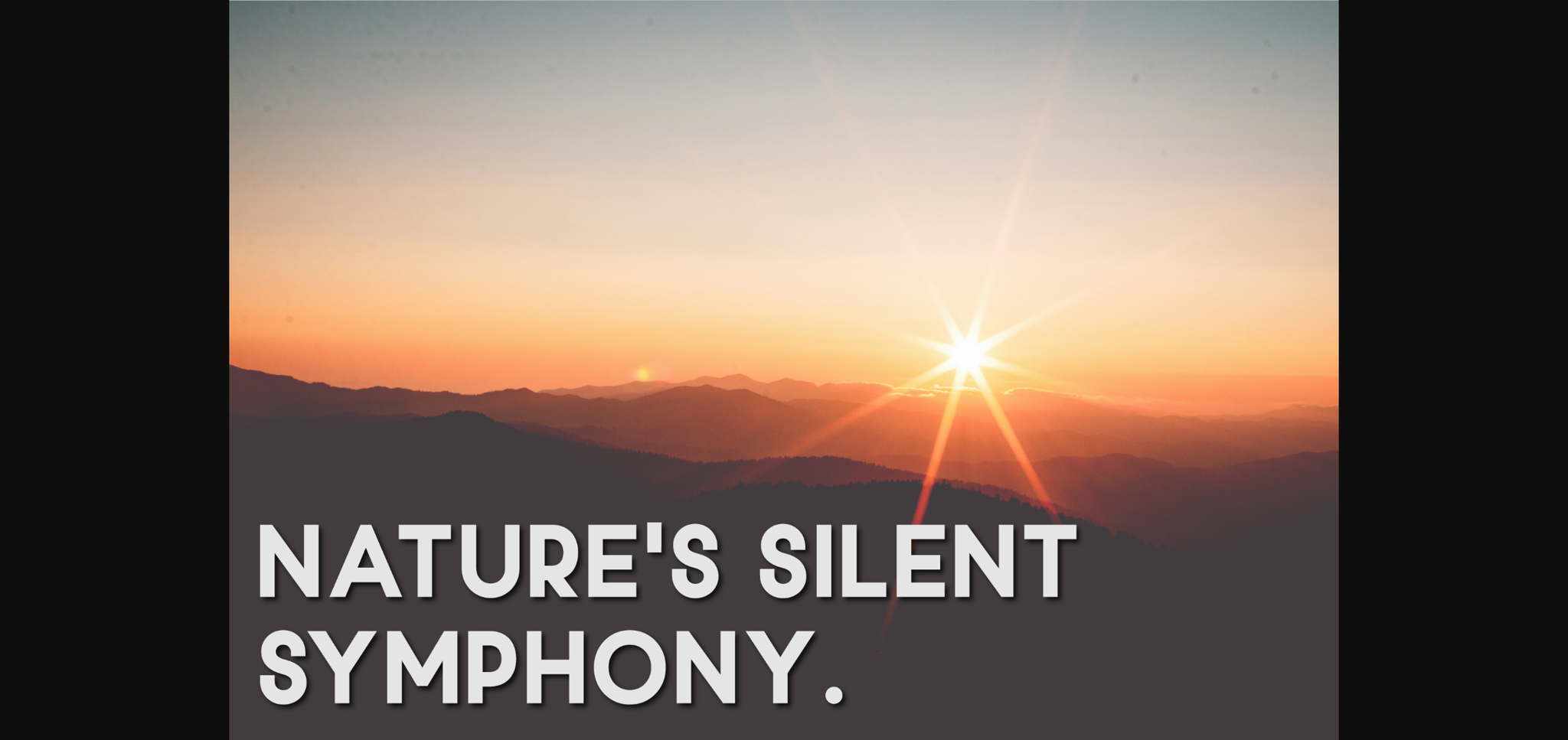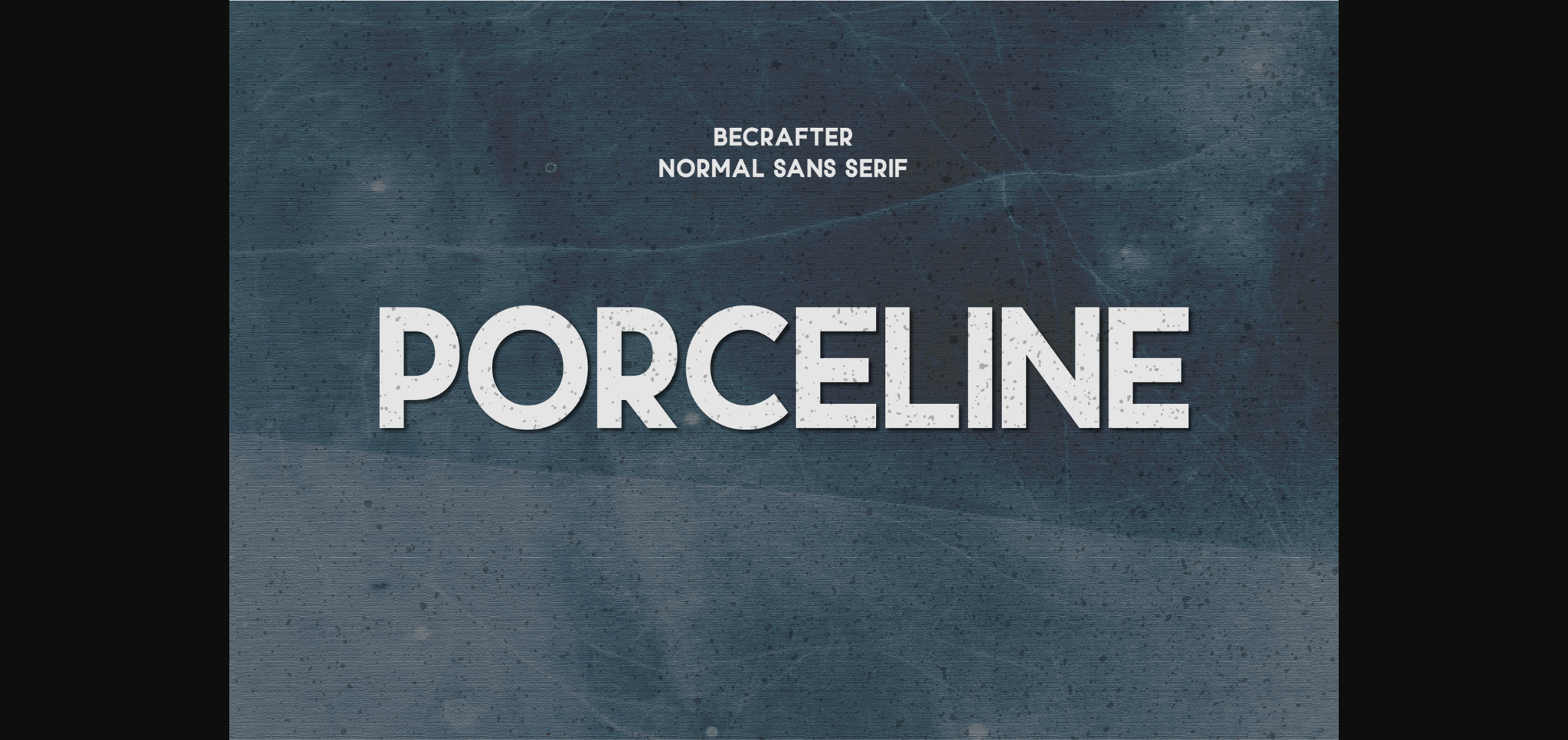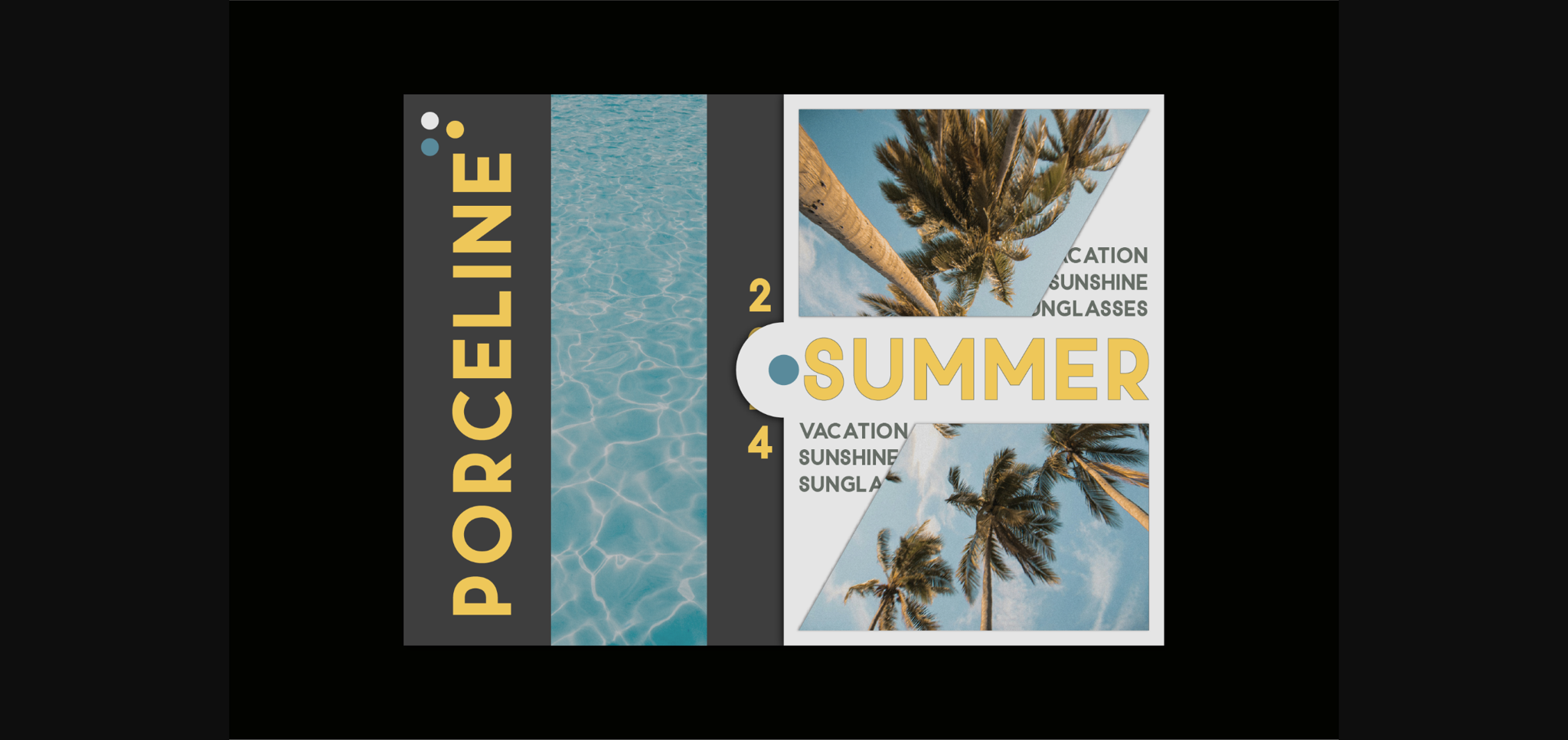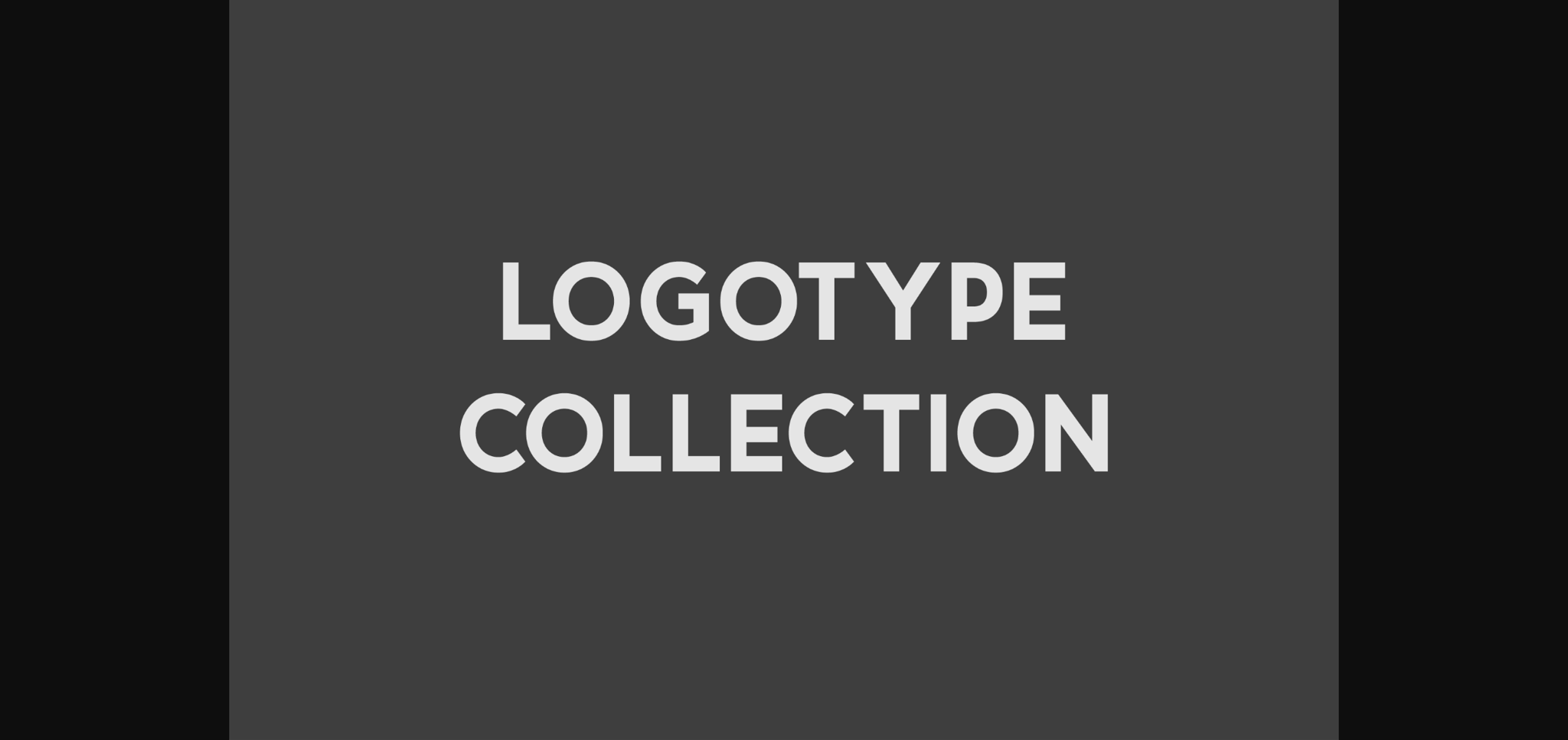
About Porceline Font
Introducing Porceline, a bold, powerful type font that adds a vintage hint to a sans serif style. Sporting a versatile aesthetic, Porceline shines brightly in various contexts to transform your designs. Unleash your creativity and impress with exquisite logos, enchanting printed materials, and beyond. With Porceline, you’re turning type into art.